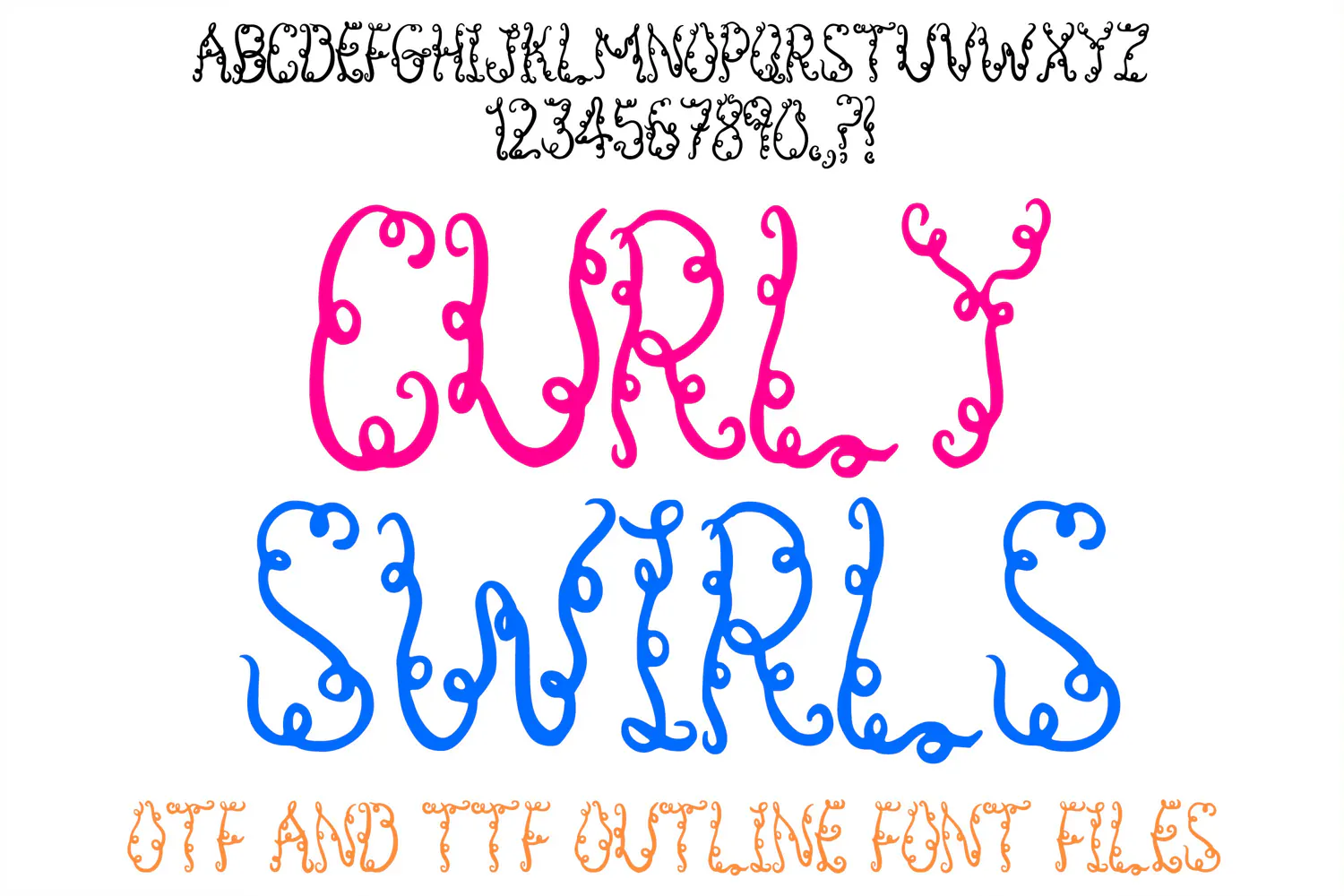
Curly Swirls ABC Font Hand Drawn Letters Alphabet OTF TTF
Bring an enchanting, fairytale magic to your design projects with Curly Swirls, an installable display font crafted with delicate loops, swirly tendrils, and whimsical curls along every stroke. Capturing a charming fantasy aesthetic reminiscent of storybook vines and ornate calligraphy, this decorative typeface adds a touch of playful elegance to any layout.
Ideal For:
Kids & Party Decor: Princess party banners, storybook invitations, birthday cards, and nursery wall art.
Crafts & Vinyl Projects: Custom sticker packs, craft machine cutouts, vinyl decals, and scrapbooking designs.
Apparel & Merchandise: Whimsical t-shirts, tote bags, magical hoodies, and custom accessories.
Branding & Stationery: Event invitations, greeting cards, fantasy book covers, and decorative logo accents.